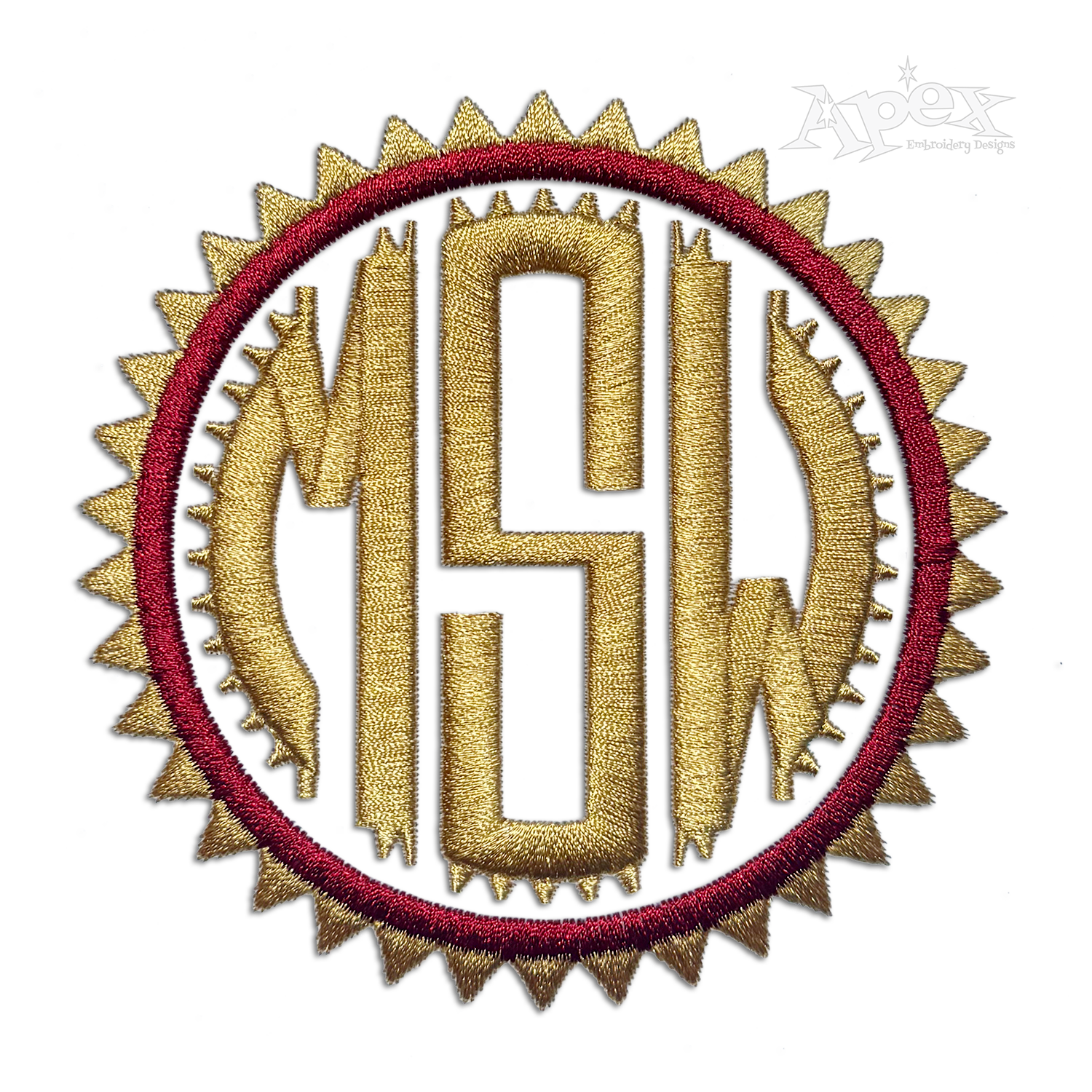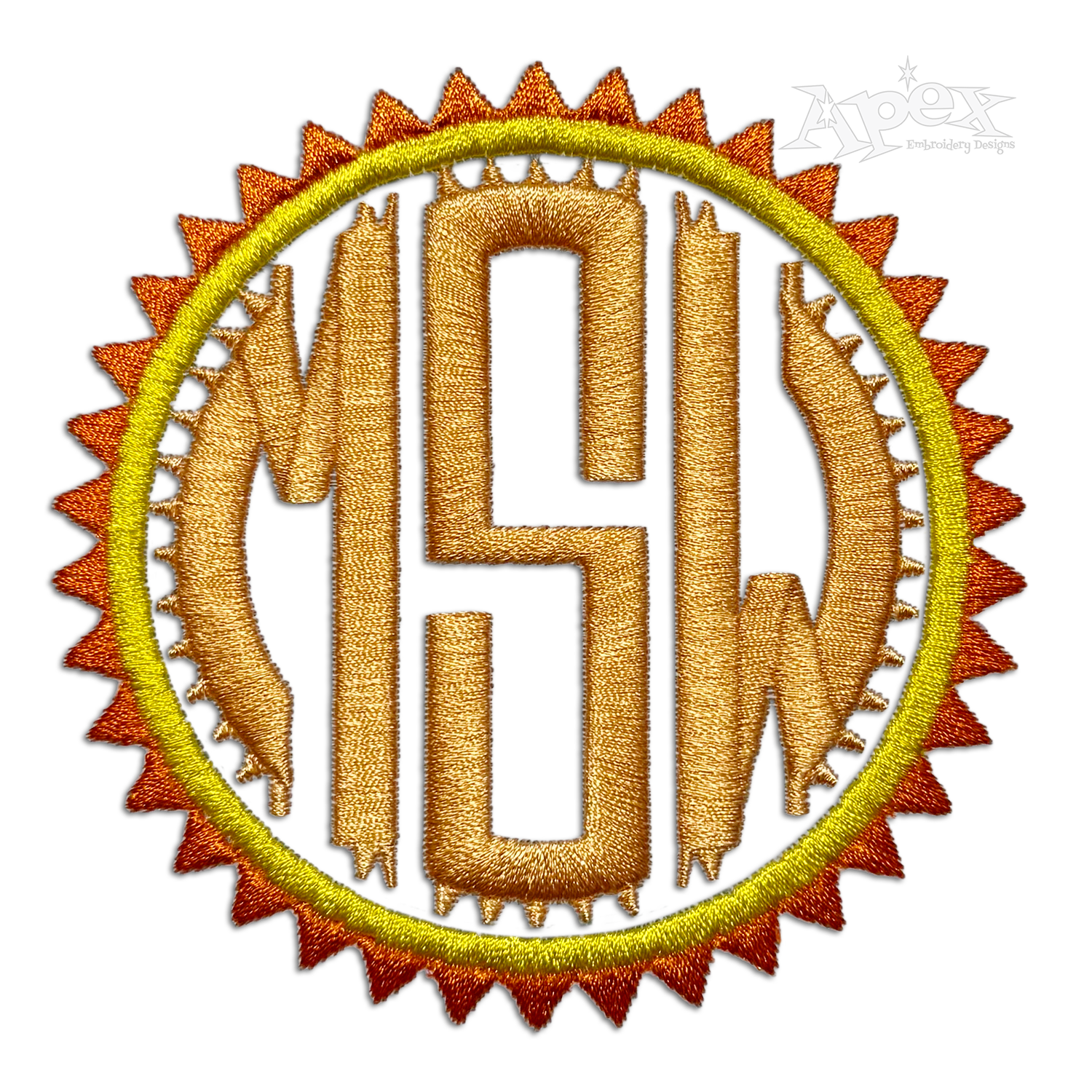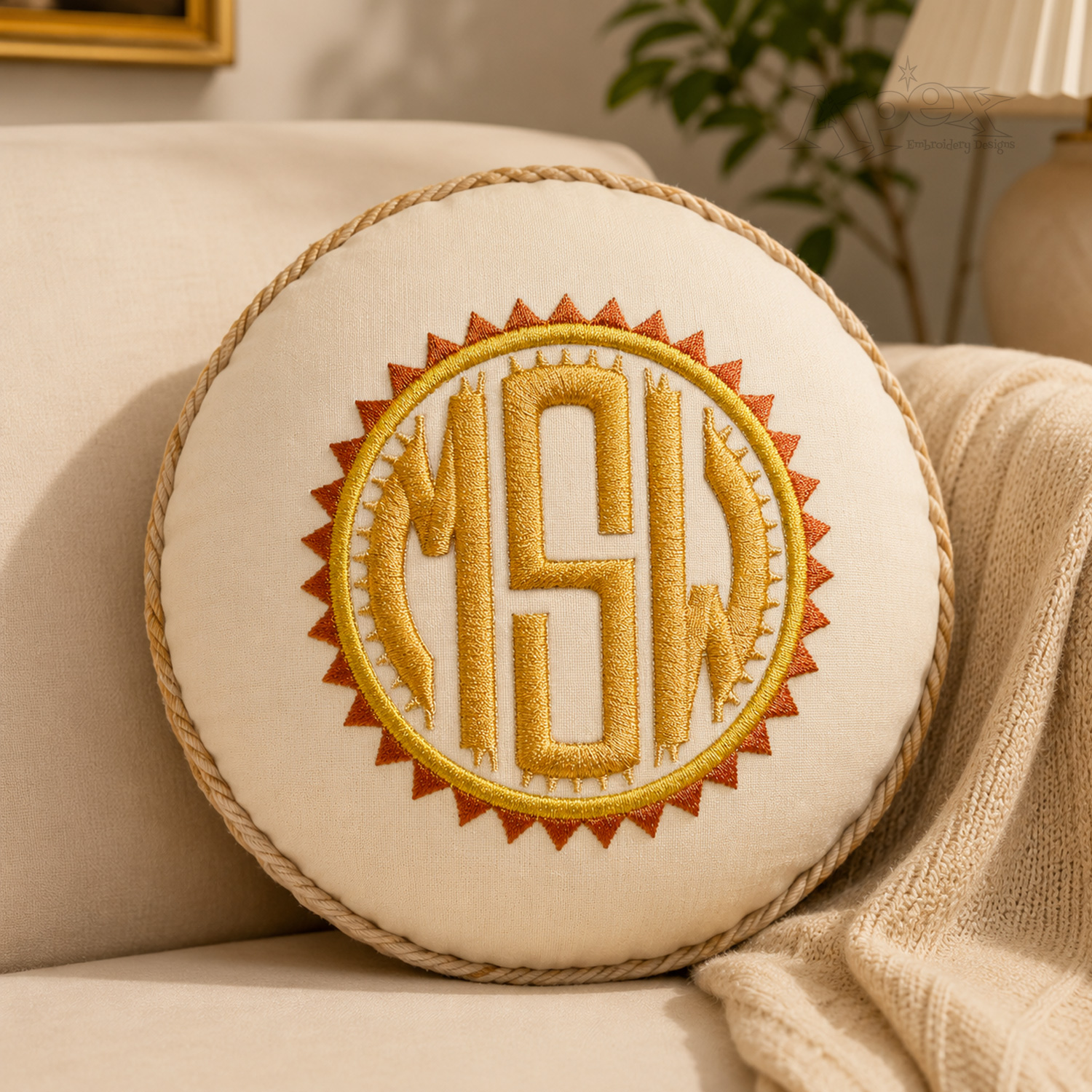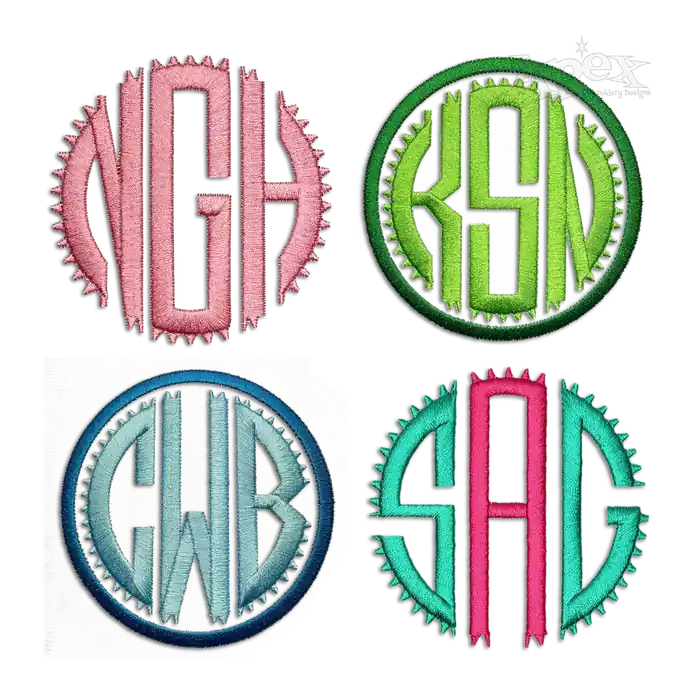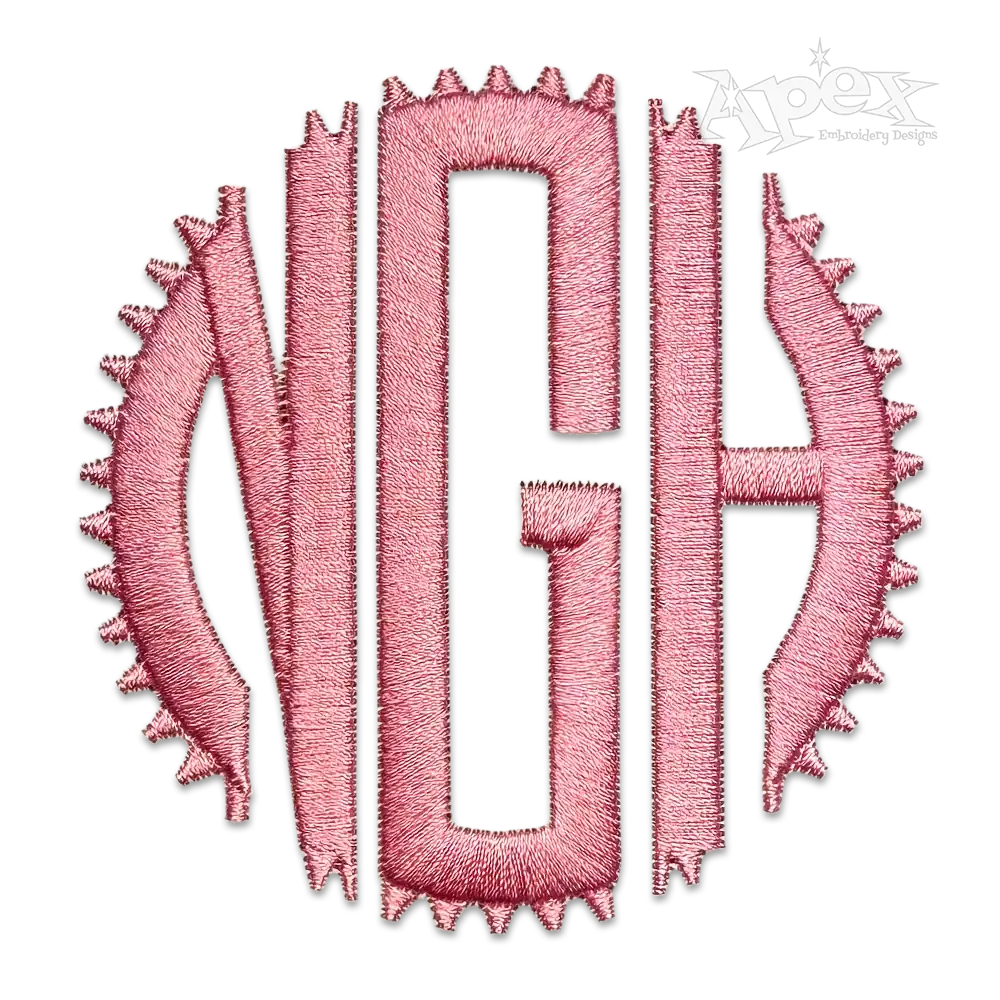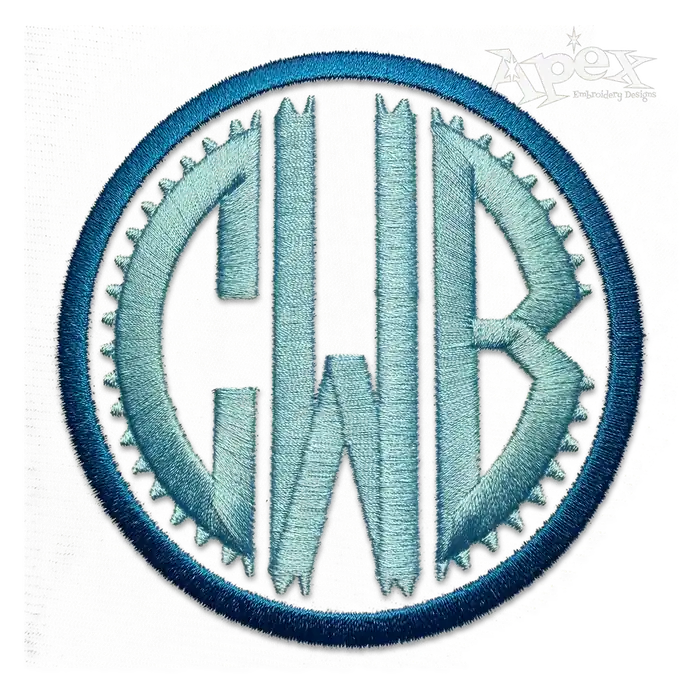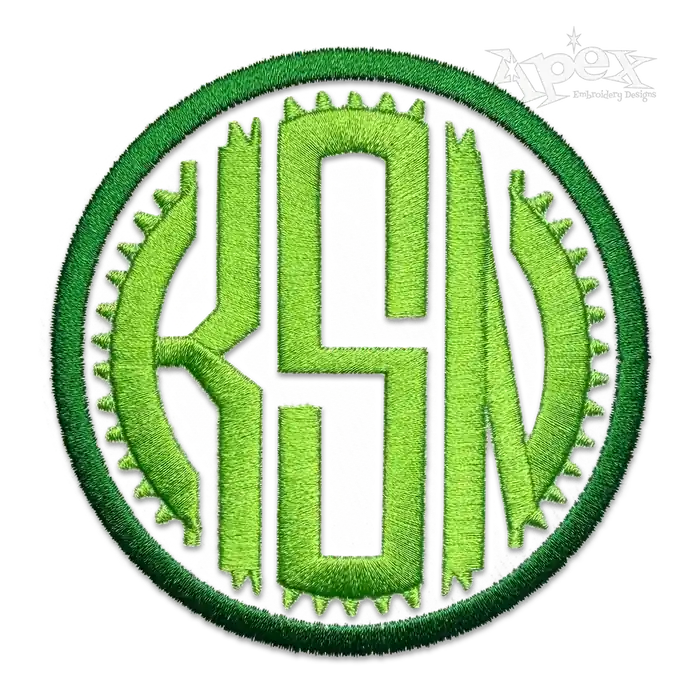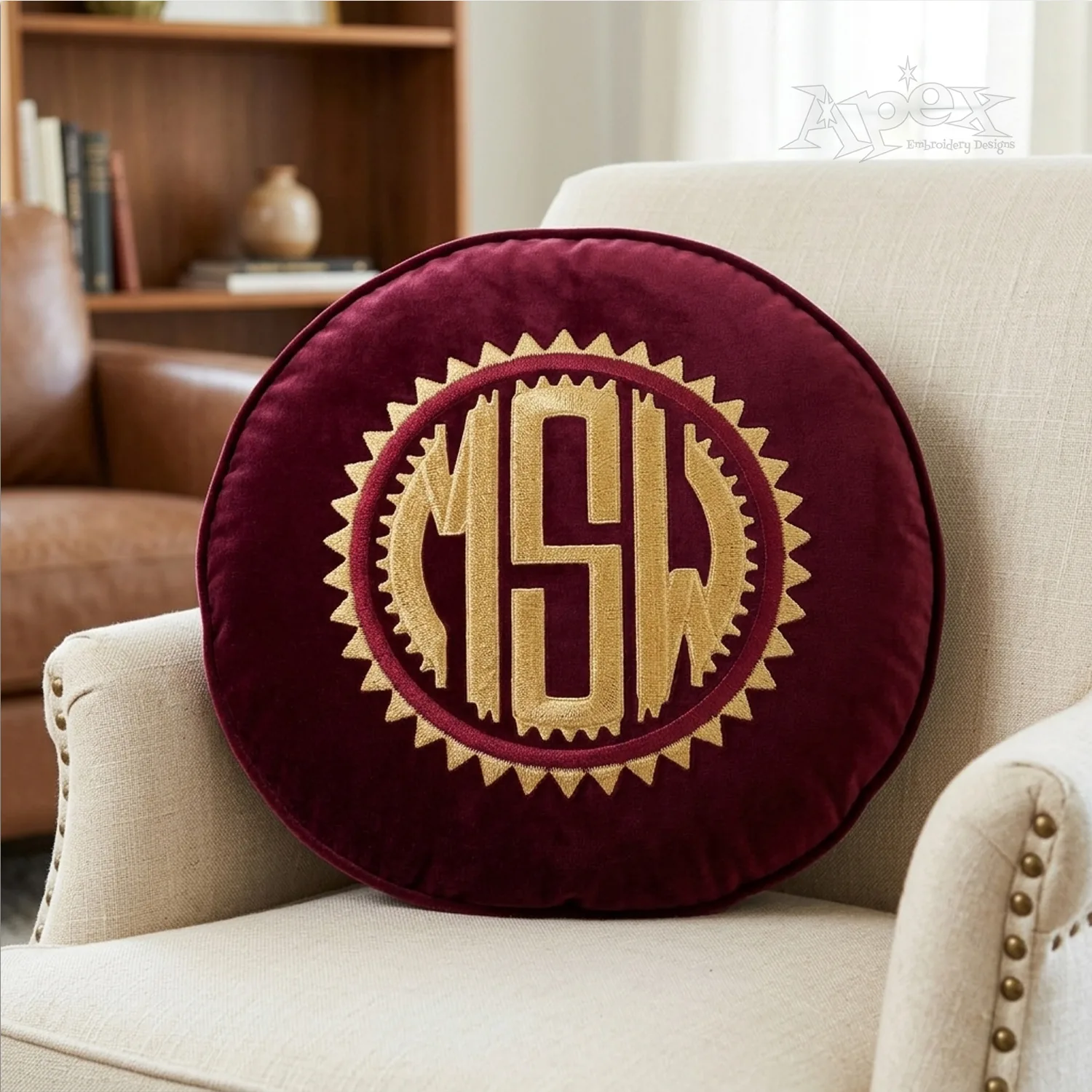
Circle Jagged Monogram Embroidery Font
Create 3D Puff style personalized gifts and home décor with Circle Round Jagged. Jagged Sprocket Monogram Embroidery Font Bundle. Featuring a classic full circle round embroidery monogram set is perfect for customizing hats, linens, towels, baby gifts, tote bags, and more.
- Jagged Circle Sprocket Monogram Font Bundle
- Perfect for 3-Letter Monograms
- Custom Home Décor Projects